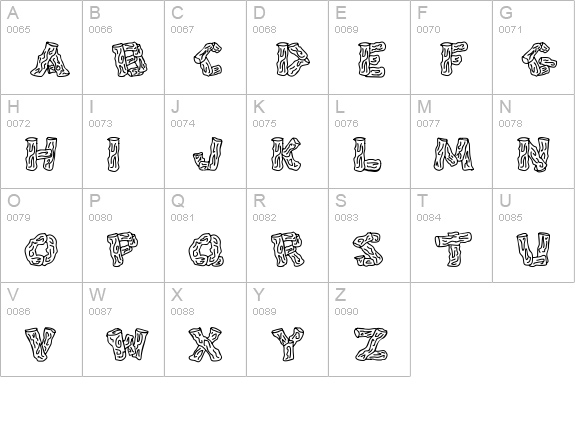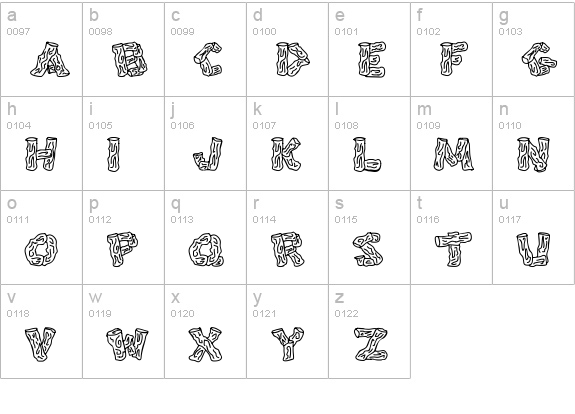
Splinters JL Font Details
Introducing Splinters JL font, a captivating display typeface that exudes a modern and edgy vibe. Its unique design features sharp angular lines that resemble fragmented wood splinters, adding a sense of dynamism and energy to any project. Whether used for branding, headlines, or graphic design, Splinters JL font is sure to make a bold statement. What makes Splinters JL font even more appealing is that it is completely free to download at FontsMarket.com. This means you can easily access this eye-catching font and use it in your creative endeavors without any cost. Don't miss out on the opportunity to enhance your designs with the striking aesthetic of Splinters JL font. Download it today and let your creativity soar.